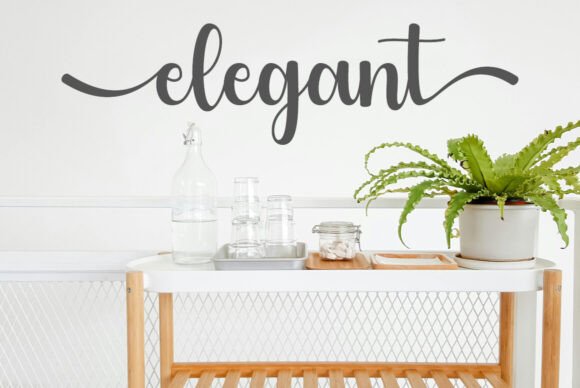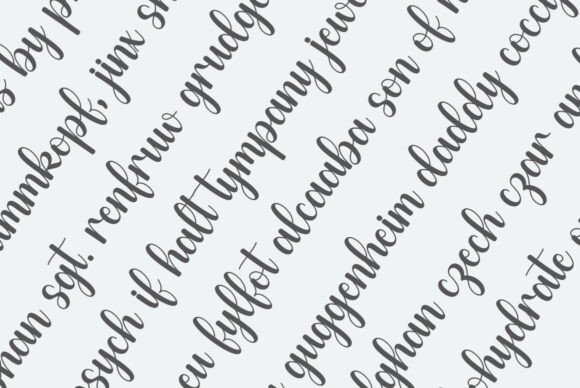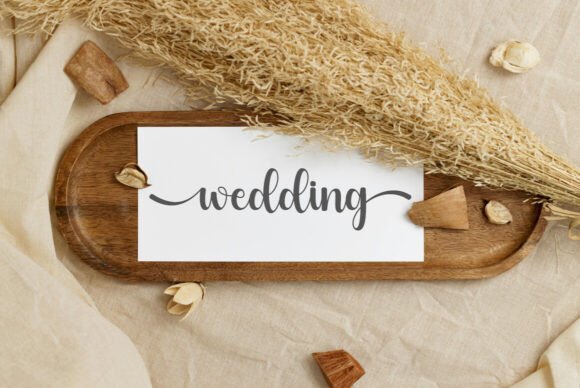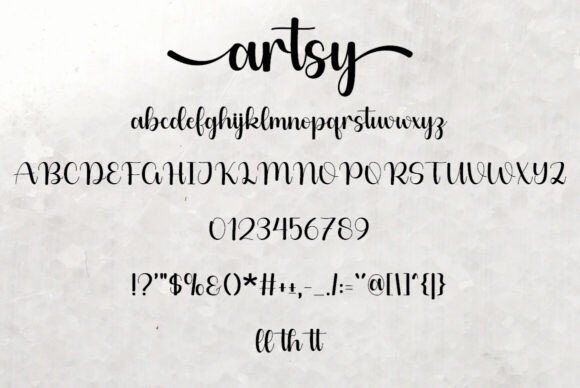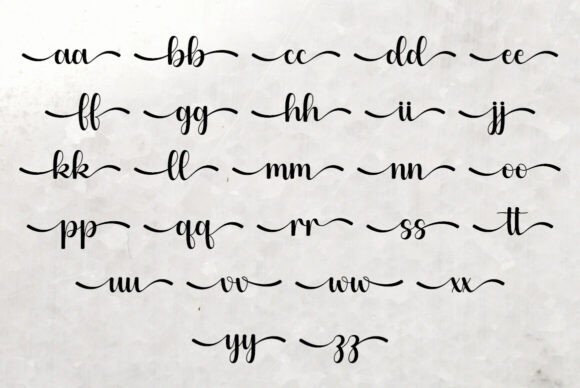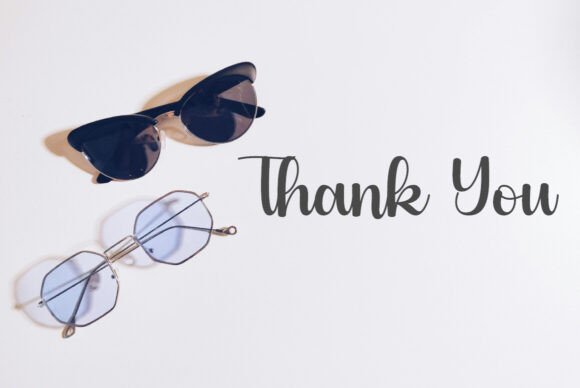
Bring a Touch of Whimsy to Your Designs
As a creative, you know that sometimes it’s the smallest details that can make a big impact. Remember the moment you found the perfect font to match your brand’s personality? The feeling of excitement and satisfaction that came with it? That’s what we’re about to introduce you to – a font that will make your designs stand out and leave a lasting impression.
Meet Artsy, a beautifully whimsical, cursive hand-lettered typeface that’s designed to add a touch of elegance and whimsy to your creative concepts. Whether you’re working on branding, logo designs, or wedding stationery, Artsy Font is the perfect addition to take your designs to the next level.
With Artsy, you’ll be able to create memorable designs that blend fanciness with casual elegance, making it a valuable asset for any designer looking to elevate their marketing promotions.
Artsy Font Key Features
• Unique Characteristics: The font features a unique blend of modern and vintage elements, with intricate details and flourishes that add a touch of elegance to any design.
• Kerning and Ligatures: The font includes advanced kerning and ligature features, ensuring smooth and even spacing between characters for professional-looking typography.
Artsy Font Review
I’ve had the chance to work with the Artsy Font, and I must say it’s a unique and interesting addition to any design project.
• ✨ Beautiful, hand-drawn feel that adds a touch of elegance to any text.
• ✨ Wide range of customization options, making it easy to adjust the font to fit your design needs.
• ✨ Perfect for creating eye-catching headings or titles that grab attention.
• ⚠️ May be difficult to read at smaller font sizes due to the intricate details.
• ⚠️ Limited support for languages other than English, which may be a concern for international projects.
• ⚠️ Can be overwhelming if used extensively throughout a design, as it may start to feel too ornate.
Overall, I’d say the Artsy Font is a great choice for designers who want to add a touch of sophistication and whimsy to their projects. While it may have some limitations, its unique look and customization options make it a valuable asset in the right situations.